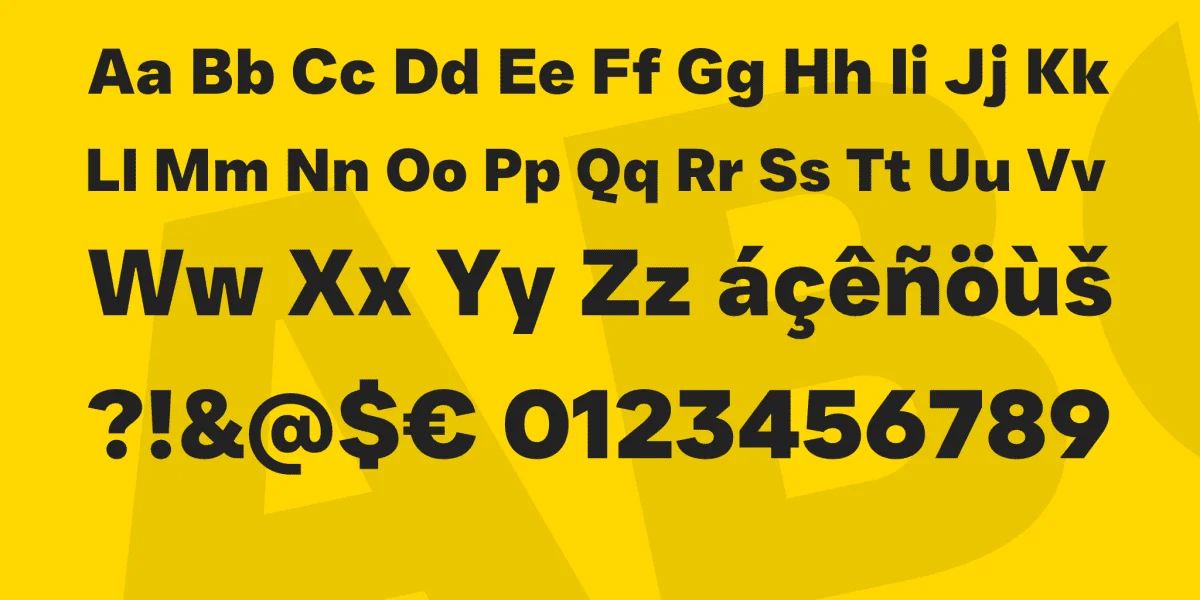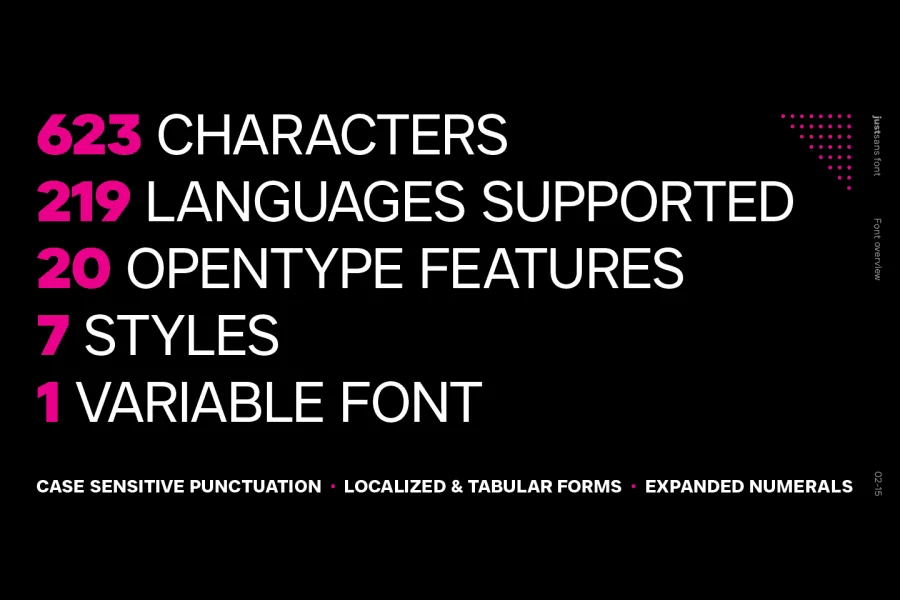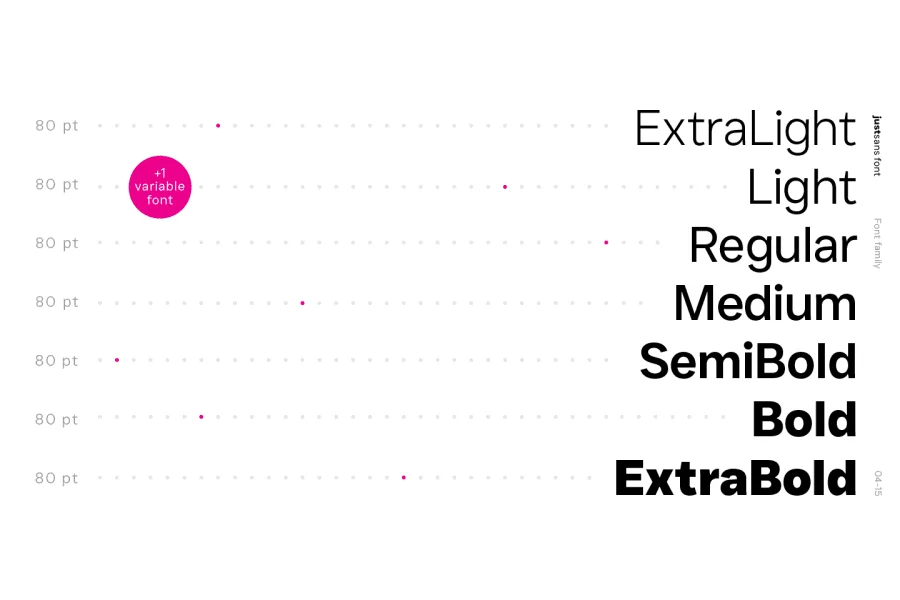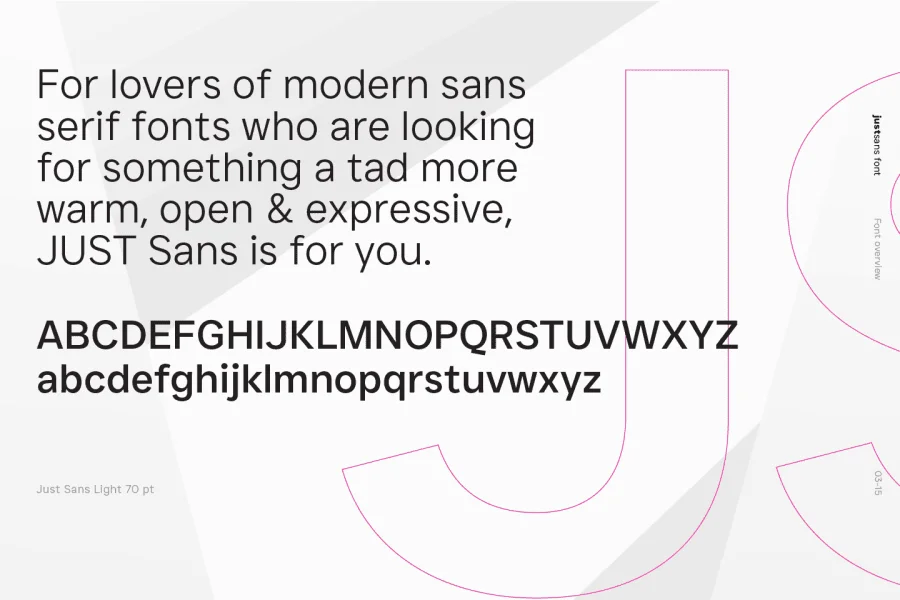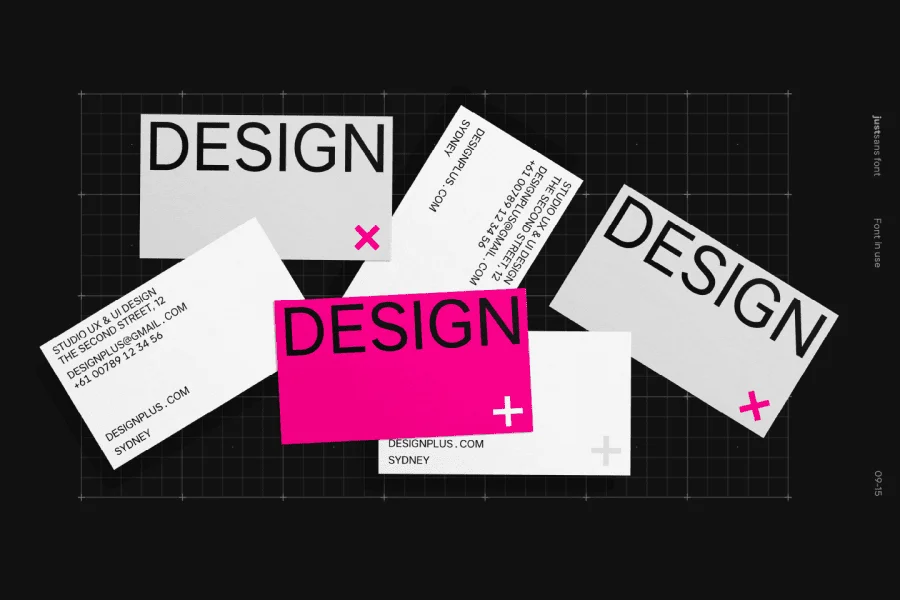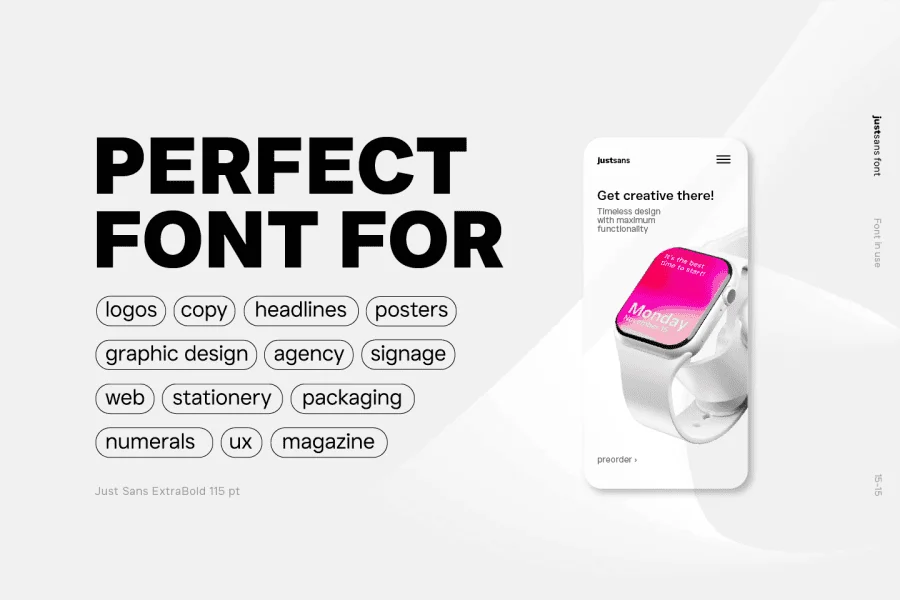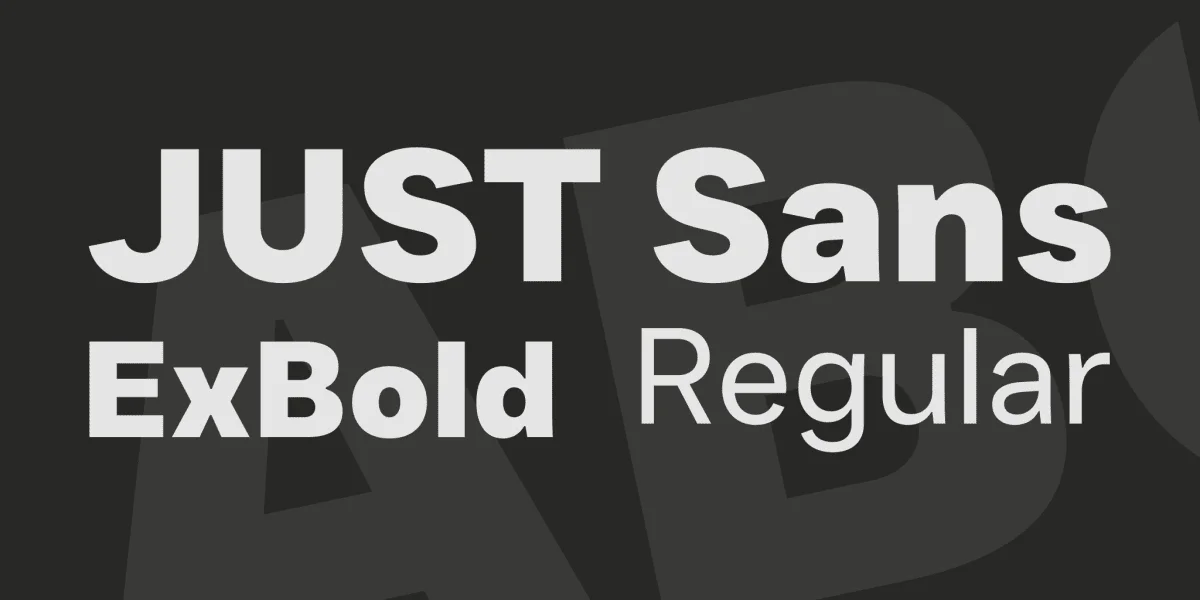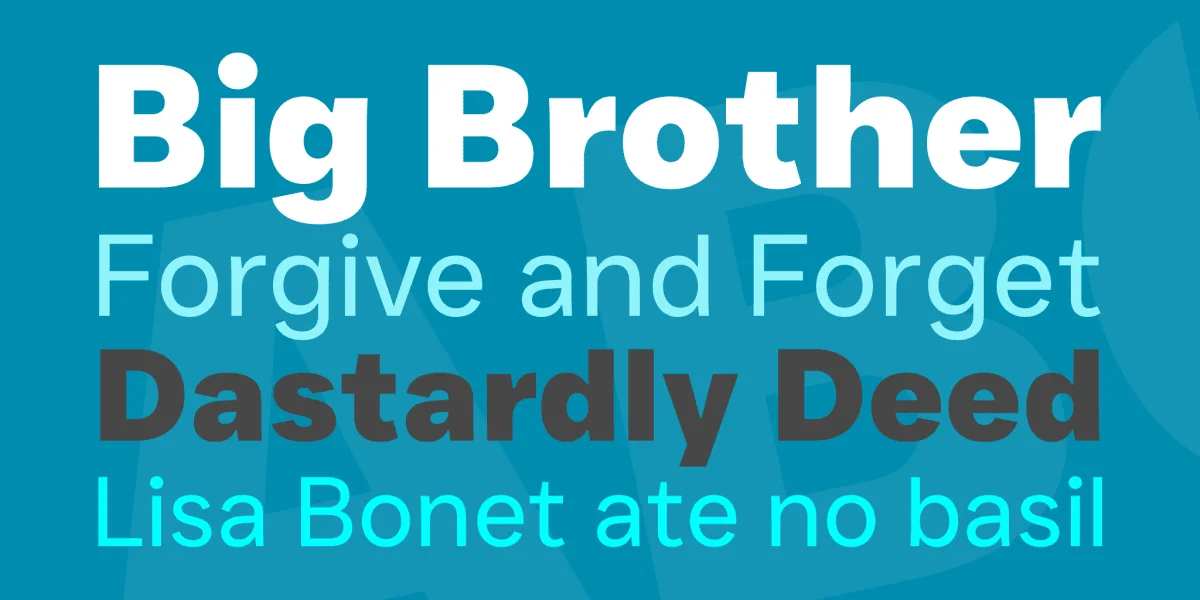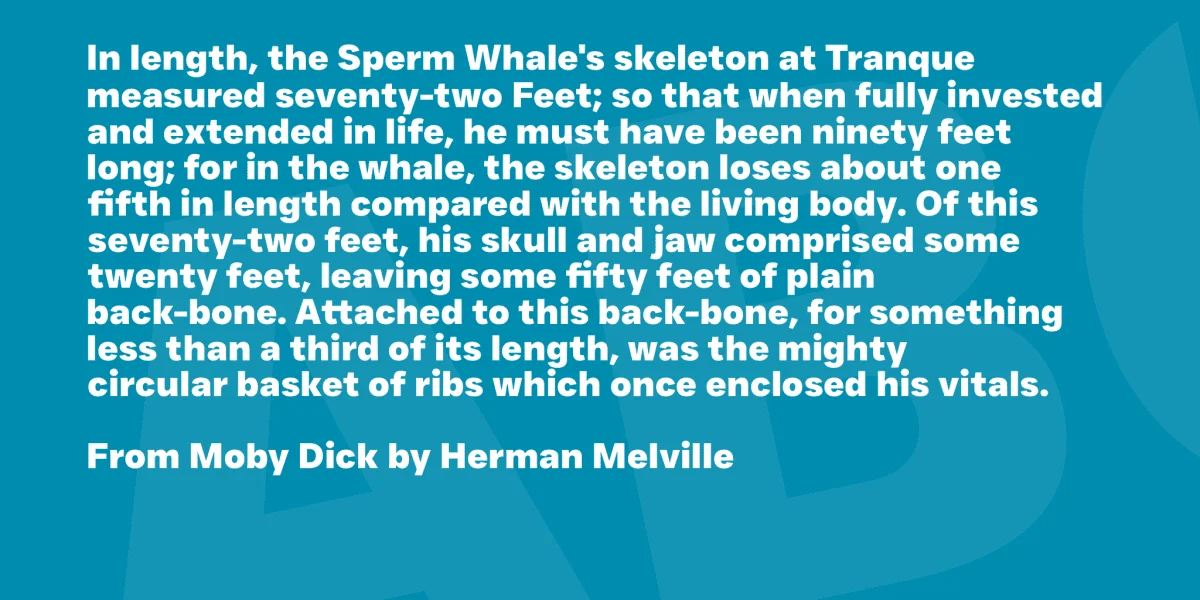
You’ve just your hands on two free weights of JUST Sans® - a highly versatile typeface with endearing, modernist warmth, geometric legibility, and a distinctive friendly bite.